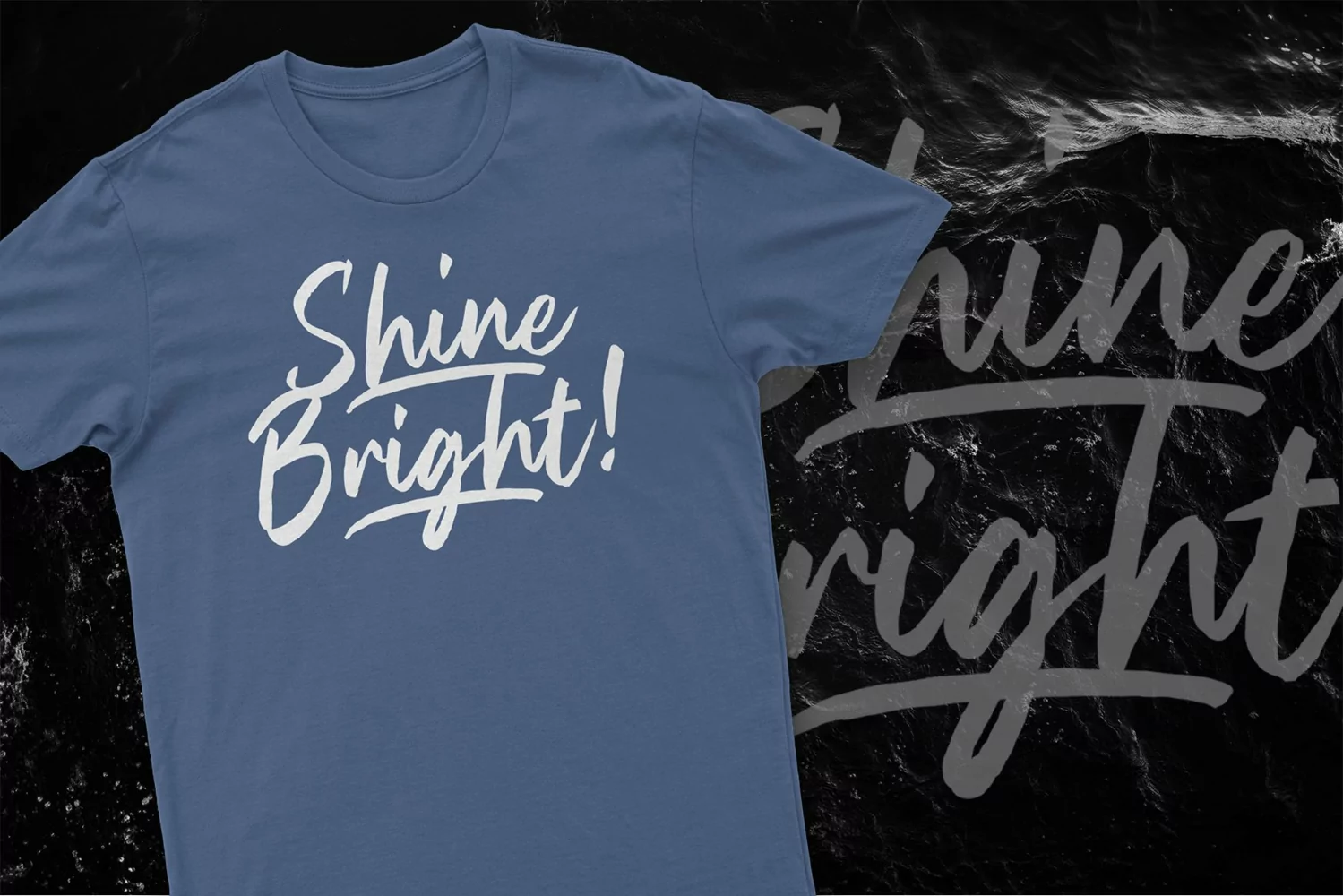
Tona is a brush script typeface. Perfect for display, poster, quotes, film, craft needs, book cover, business card, packaging, merchandise, branding, logo, logotype, header, title, and many more.